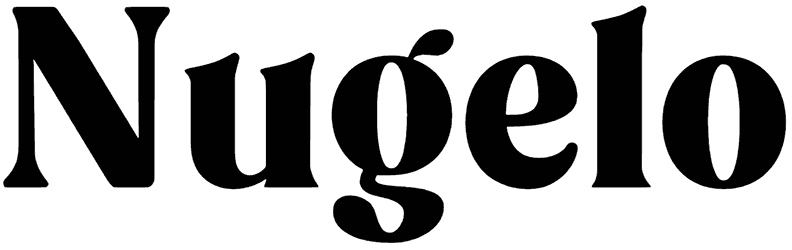
Nugelo Font
Designed byViswell Studio
Nugelo font is a nostalgic tribute to a bygone era and evokes fondness. This retro font is bold, vibrant, and full of personality, and perfectly captures the spirit of the past decades.
Whether you want to capture the essence of a specific era or add a playful touch to your design work, with Nugelo, you can be transported to another time and place. So why don’t you experience this attractive feeling and allow your creative spirit to fly in the past?